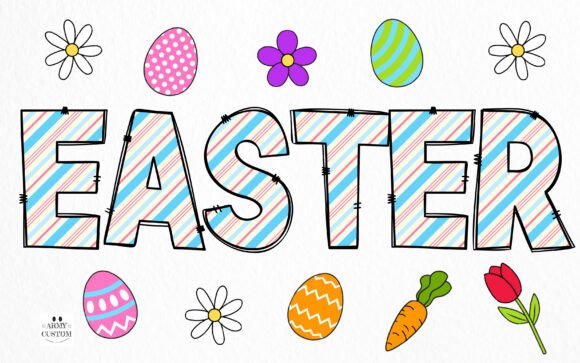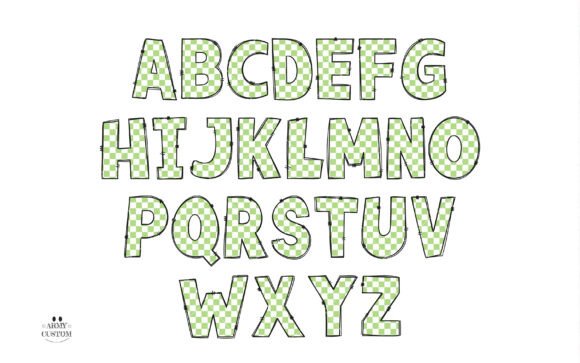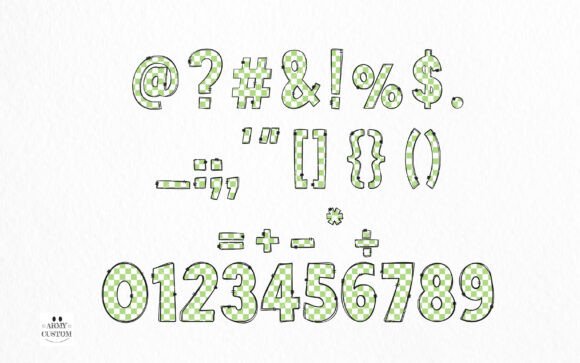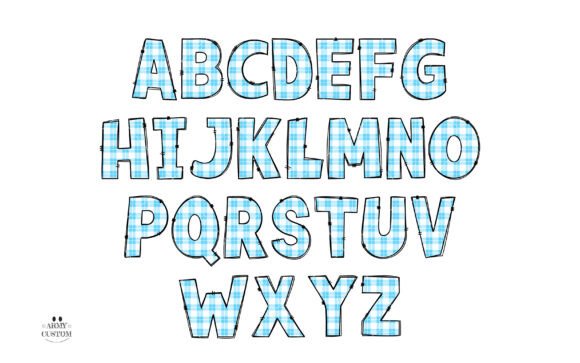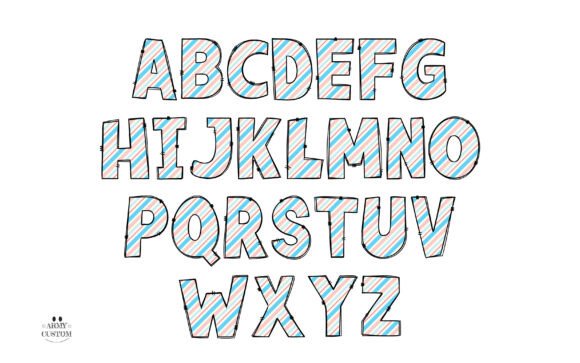
Unlocking the Joy of Easter with the Easter Bundle Font
I’ll never forget the Easter project that got me hooked on the Easter Bundle Font. I was working on a whimsical Easter-themed party invitation for a friend’s kid, and I just couldn’t find the right font to capture the playful spirit of the holiday. That was until I stumbled upon the Easter Bundle Font, which instantly transported me to a world of vibrant colors and joyful celebrations.
The Easter Bundle Font, specifically the “Easter Font Bundle No.7”, embodies the rhythmic charm and exhilarating excitement of Spring, reminiscent of Easter celebrations. This font is more than just a collection of letters – it’s an artistic tool that brings your ideas to life with a lively, vibrant aesthetic.
- ✨ The Easter Font effortlessly transcribes your ideas into delightful visual narratives, infusing your designs with a lively, vibrant aesthetic.
- ✅ The font comes in both black and color versions, offering flexibility for various design projects.
The Easter Bundle Font was inspired by the joy and excitement of Easter celebrations. The designer wanted to create a font that would capture the playful spirit of the holiday, while also providing a versatile tool for designers and crafters.
The Easter Font is a reflection of the designer’s passion for typography and creative expression. With its vibrant colors and lively aesthetic, this font is sure to bring a smile to your face and inspire your next design project.
| Font Name | Easter Bundle Font |
| Author | Army Custom |
| Q: What is the Easter Bundle Font? | A: The Easter Bundle Font is a collection of fonts designed to capture the playful spirit of Easter celebrations. |
| Q: Is the Easter Font compatible with Cricut Design Space? | A: The black version of the Easter Font is compatible with Cricut Design Space, but the color version is not. |